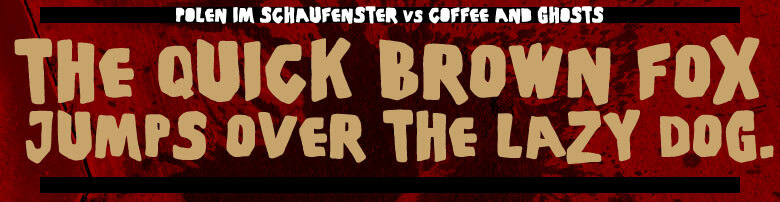
PiSCoffinsandGhosts
Polenimschaufenster and Coffee and Ghosts teamed up for the release of PiS Coffins and Ghosts!
This font is based on the credit titles from the 1960s Edgar Wallace movie Der grne Bogenschtze. It is free for personal and non-commercial use, means: play around with our baby, and were cool with it. If you want to use it for a book cover, a poster or whatever, were cool after you pay a licensing fee.